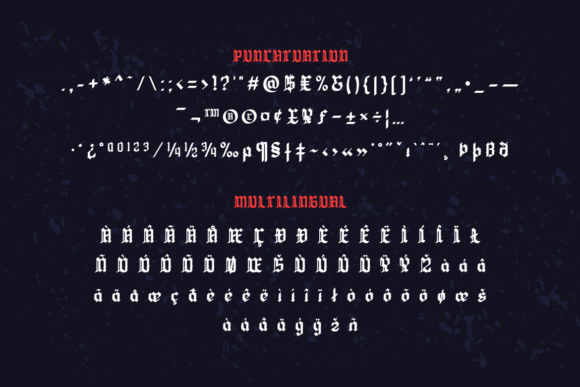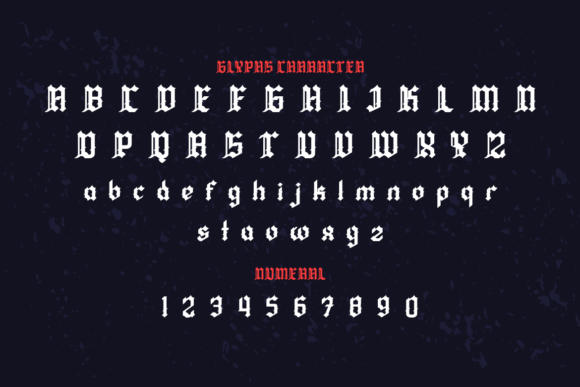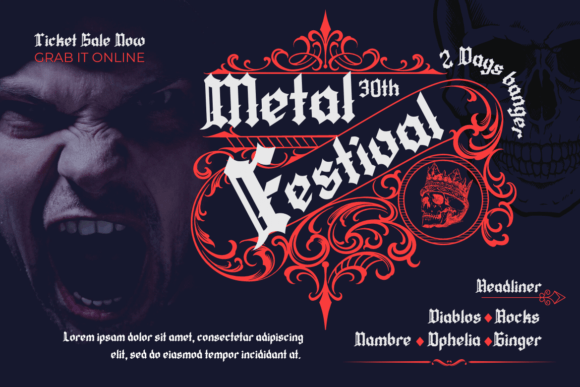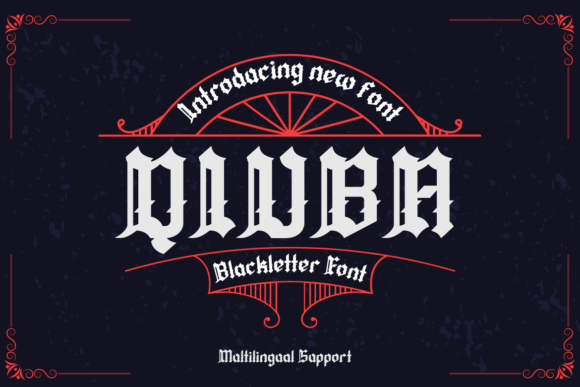
Introduction to Qiuba Font
The ideal Gothic font is Qiuba You can use this cool font to create labels, retro stamps, badges, Oktoberfest posters, and other designs.